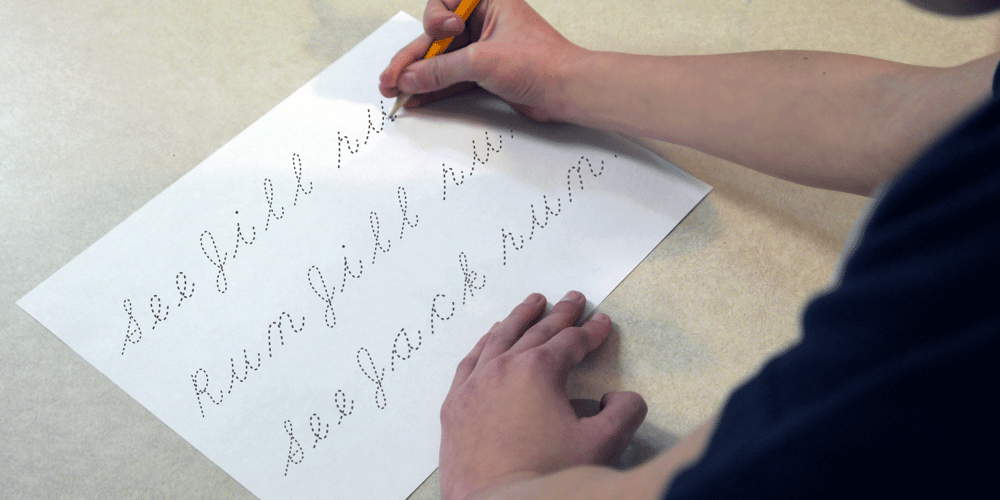
Dot To Dot Cursive
Dot To Dot Cursive font
Dot To Dot Cursive Font Family was designed by Kent Swecker and published by A New Machine. Dot To Dot Cursive contains 2 styles and family package options. Dot to Dot Cursive is a cursive version of our regular Dot to Dot font. This font is for parents and educators that want to easily be able to print out a cursive alphabet in order to have their child or student trace them. This eliminates the need for creating the dotted lines by hand and lets the user type out exactly what letters they need instead of relying on pre-made charts. The font is upper and lowercase letters and numbers only – no punctuation. Comes in Regular and Guides (get both for the same price as one) which draws guidelines with the letters. Best when used at a large point size.